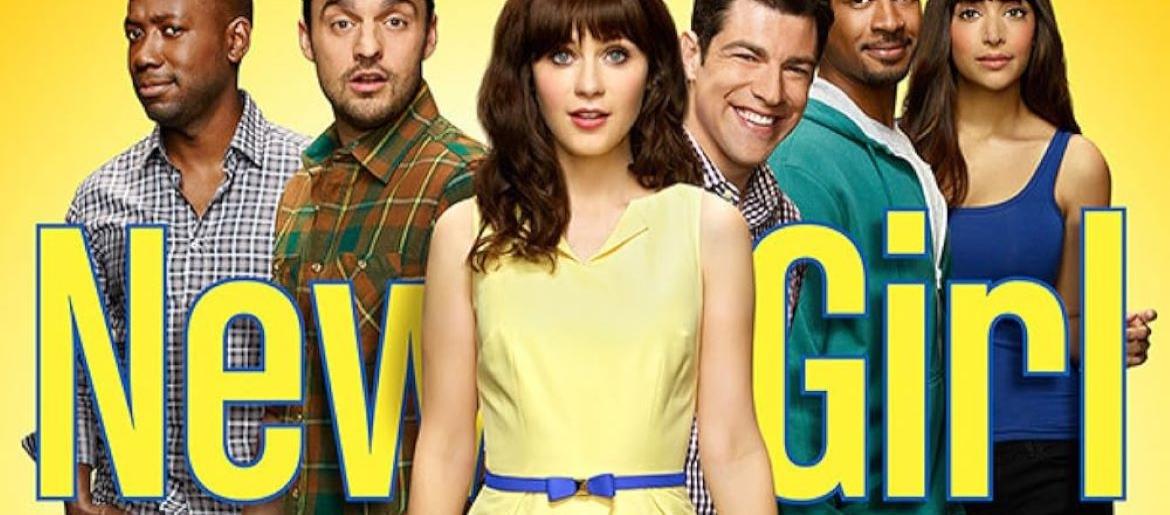
New Girl Font
The New Girl font brings the same bright, energetic personality that made the sitcom so memorable. Its clean yet lively design echoes the show’s cheerful tone, giving your projects a friendly, modern look. Whether you’re designing invitations, social media visuals, or fun creative pieces, this typeface adds a warm and stylish charm. The title style used in the New Girl series is based on the condensed typeface Chalet Comprimé Cologne 1980, part of the renowned Chalet family by House Industries.